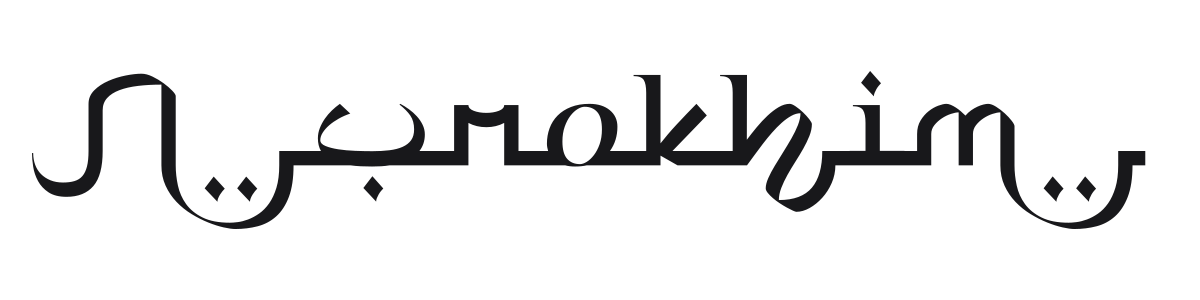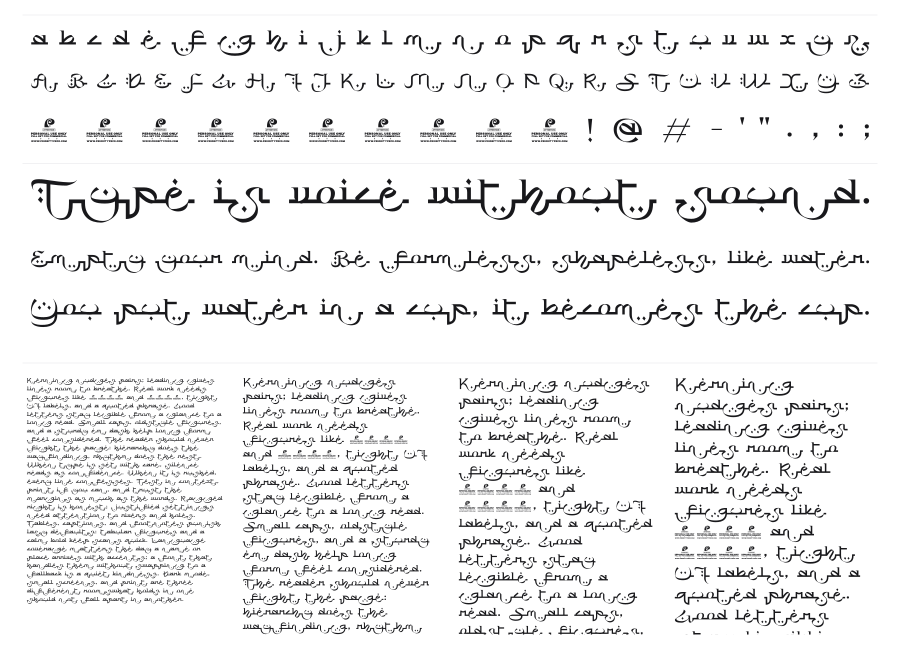
Nurokhim
Nurokhim is a Latin display font that draws its entire character from Arabic calligraphic tradition, reshaping familiar letters into a flowing, connected script that feels pulled from a Naskh or Nastaliq pen. The thin strokes, sweeping curves, and looping connections create a strong exotic personality without sacrificing legibility at large sizes. A striking choice for titles, brand marks, or any project that needs a cultural or ornamental edge.